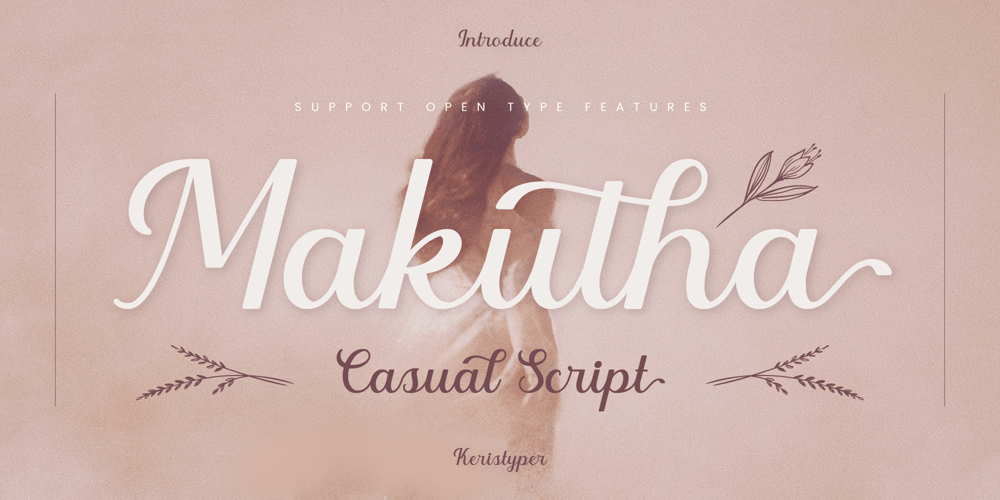
Makutha Font Family was designed by Tezar Tantular and published by Keristyper Studio. Makutha contains 1 styles and family package options. Makutha Script Font is an elegant script typeface. Designed primarily as a captivating handcrafted with style. This typeface is easy on an eyes font that excels at captivating headlines, or branding.Makutha Script Font multilingual support: Afrikaans, Albanian, Catalan, Danish, Dutch, English, Estonian, French, Finnish, German, Icelandic, Indonesian, Italian, Malay, Norwegian, Portuguese, Spanish, Swedish, Zulu, and many more.What’s Included : Web Fonts Standard & Multilingual glyphs Ligature Works on PC & Mac Simple installations Accessible in Adobe Illustrator, Adobe Photoshop, Adobe InDesign, and even work on Microsoft Word. Hope you enjoy our font!